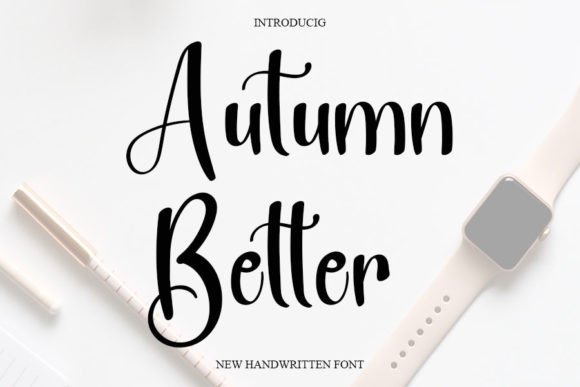
Behold, Autumn Batter, a script font that radiates warmth and charm. Created by Intana Type, this captivating font evokes a sense of nostalgia with its sweet and delicate strokes. Experience the allure of handwritten elegance, where each letter dances across the screen like a melody.
With Autumn Batter, your designs will blossom into works of art. Envision wedding invitations adorned with flowing script, encapsulating the joy and romance of your special day. Create heartfelt cards that convey your deepest emotions, leaving a lasting impression on loved ones. Embark on creative projects that demand a touch of personalized charm, for Autumn Batter is the perfect companion for any design endeavor.
Step into a world where creativity knows no bounds. Autumn Batter complements logos, branding, and social media posts effortlessly, adding a touch of sophistication to your digital presence. Elevate your marketing materials, brochures, and flyers, making them stand out from the crowd. Transform mundane presentations into visually stunning masterpieces that captivate your audience.
Unleash your imagination with Autumn Batter and let your designs take flight. Its versatility knows no limits, adapting seamlessly to a myriad of projects. Explore the limitless possibilities, from enchanting posters to captivating book covers, and let your creativity flourish.
Autumn Batter beckons you to embark on a creative journey, where your designs will leave an indelible mark. Seize the moment and let your imagination soar with this exquisite font. Elevate your design game to new heights and create masterpieces that will captivate and inspire.